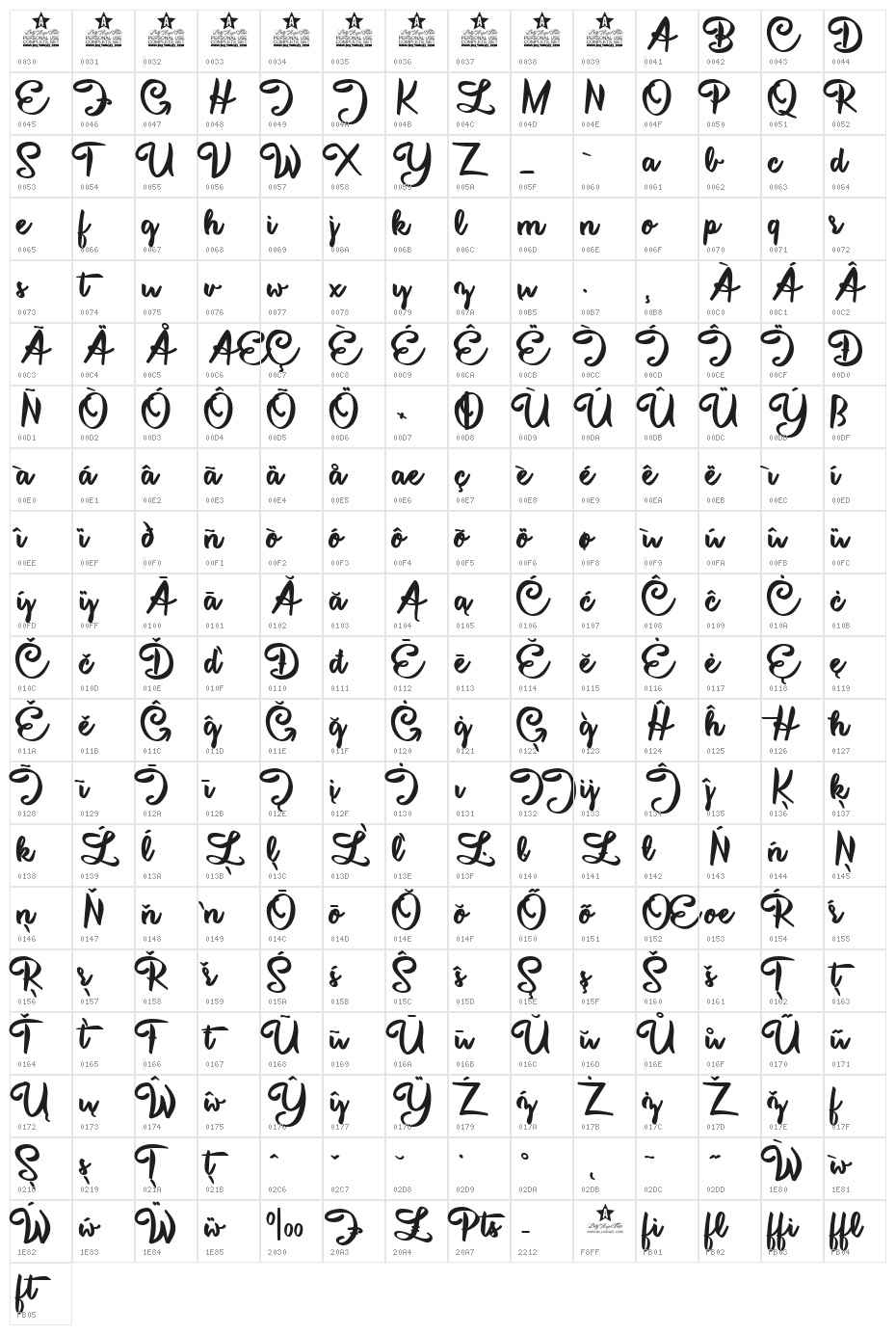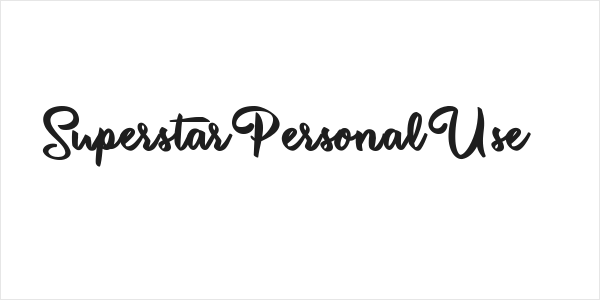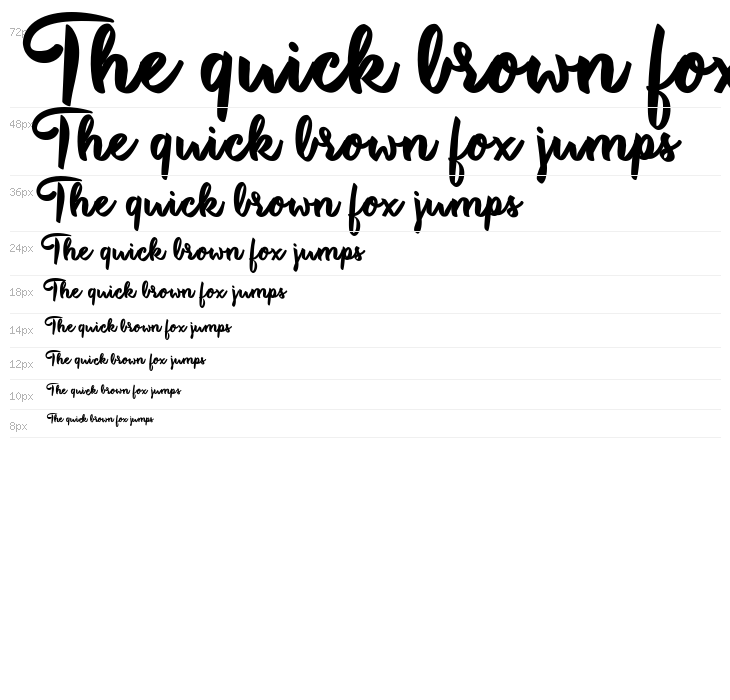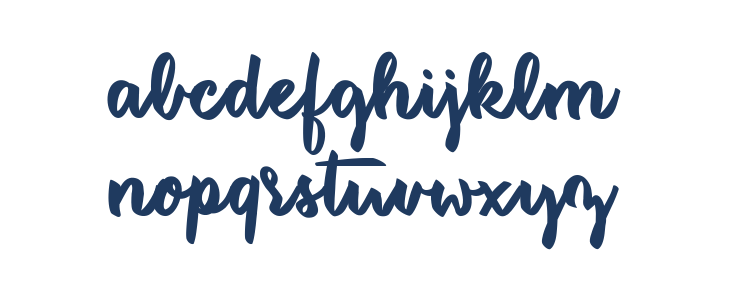
Superstar Personal Use Font
Superstar Personal Use Description
This font features a lively and energetic script style with a playful and artistic flair. The uppercase letters are characterized by their flowing, cursive forms, which are both elegant and dynamic. The lowercase letters maintain a consistent style, with smooth curves and a slightly informal touch. The numbers and special characters are designed to complement the overall aesthetic, adding to the font's versatility. The strokes are bold and confident, making it suitable for eye-catching designs.
Use CaseLogos, Headlines, Invitations
Proposed ProjectsIdeal for branding, invitations, greeting cards, and creative projects that require a personal touch.